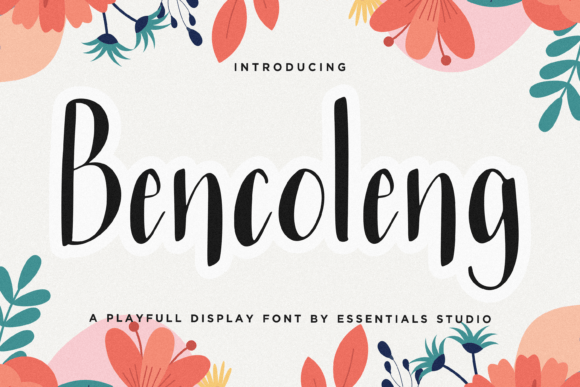
The Bencoleng Font: A Fun and Casual Handwritten Delight
I’ll never forget the moment I stumbled upon the Bencoleng font. I was working on a project for a client who wanted a playful and whimsical touch, but I was struggling to find the perfect font. That’s when I discovered Bencoleng, and it instantly became my go-to choice. In this article, I’ll share my experience with this amazing font, its features, and how to make the most of it in various design platforms.
An Honest Review of Bencoleng Font
What I Love About Bencoleng ✨
- 💖 Fun and casual handwritten style that’s perfect for creative projects
- 🎨 Versatile and adaptable to various design contexts, from digital to print
- 👍 Easy to pair with other fonts for a cohesive look
- ⚠️ Limited character set, which might not be suitable for projects requiring extensive language support
- 🤔 Some users might find the font too casual or playful for formal projects
The Story Behind Bencoleng Font
Bencoleng is a carefully crafted font designed to bring a touch of playfulness and whimsy to your designs. While the font’s origins are unclear, it’s likely that the designer aimed to create a friendly, approachable font for creative projects. The result is a beautiful, highly legible font that’s perfect for a wide range of applications.
| Author | Essentials Studio |
Q: What is the best use for Bencoleng font?
A: Bencoleng is versatile and can be used for various projects, such as crafts, digital design, presentations, and greeting cards.
Q: Is Bencoleng suitable for formal projects?
A: While Bencoleng is a beautiful font, it may be too casual for very formal projects. Consider using a more traditional font for formal events or professional documents.